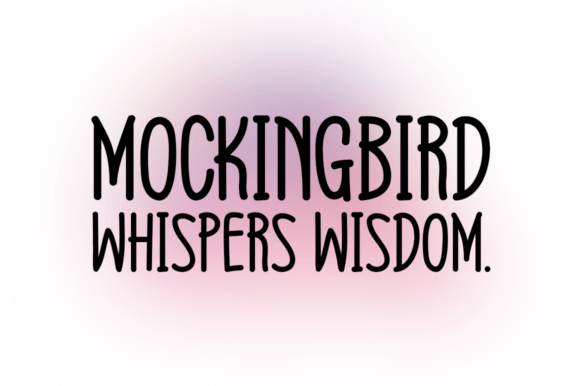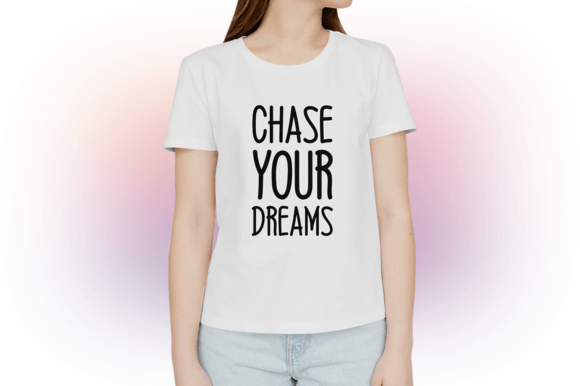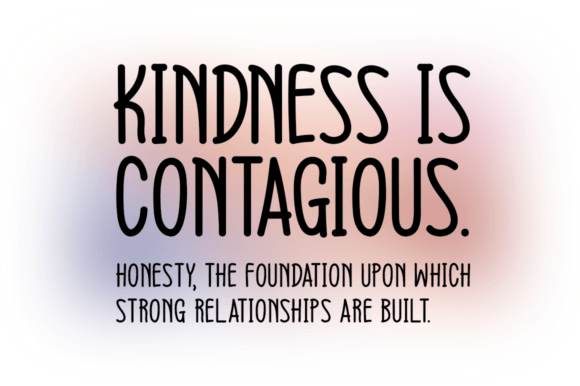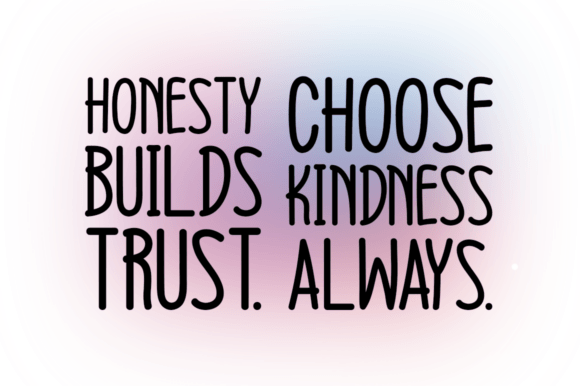
Introduction to Humankind Font
Imagine you’re working on a creative project, and you need the perfect font to bring your vision to life. You search through countless design resources, but nothing seems to capture the essence you’re looking for. That’s where the Humankind Font comes in – a high-quality, handwritten font that exudes modernity and timelessness.
As a designer, you know how crucial it is to have the right tools at your disposal. The Humankind Font is a valuable addition to any design arsenal, offering a fresh and inviting touch to your projects. Whether you’re working on branding, stationery, or digital designs, this font is sure to elevate your creations. Plus, its transparent background makes it perfect for image sliders and photo frames, giving you the freedom to experiment with creative possibilities.
Key Features of Humankind Font
- Designed with a modern aesthetic, suitable for a wide range of creative projects
Honest Review: Humankind Font
I recently stumbled upon the Humankind Font and was excited to dive in and see what it had to offer. As a designer, I’m always on the lookout for high-quality design resources that can elevate my creative projects.
One of the first things that caught my eye was the Humankind Font’s transparent background, which allows for seamless integration with any design element. This feature is particularly useful when working on complex compositions.
- ✨ High-quality design that’s perfect for a wide range of creative projects
- ⚠️ Limited character set, which may not be suitable for extended text-based projects
- ⚠️ May not be as versatile as some other fonts on the market
Overall, I was impressed with the Humankind Font’s design and functionality. While it may not be perfect for every project, it’s a great option for designers who need a high-quality font with a transparent background.
Tips for Getting the Most Out of Humankind Font
When using the Humankind Font, consider the following tips: Use a transparent background to give your design a clean and modern look. Experiment with different font sizes and styles to create visual interest. Use the font in conjunction with other high quality design resources to create a cohesive and professional look.
Common Use Cases for Humankind Font
The Humankind Font is a versatile design resource that can be used in a variety of creative projects, including logos, business cards, and marketing materials. It’s also a great choice for presentations and documents, where a clear and easy-to-read font is essential.
Alternatives to Humankind Font
Avenir is a high-quality sans-serif font that is ideal for use in creative projects requiring a clean and modern aesthetic. It features a transparent background and is available for free download. Avenir is a versatile font that compares well to Humankind Font in terms of its clean lines and modern feel, but has a more geometric and futuristic design.
Montserrat is a popular sans-serif font that is perfect for use in design projects requiring a high level of readability and visual appeal. It features a transparent background and is available for free download. Montserrat is similar to Humankind Font in terms of its clean and modern design, but has a more urban and industrial feel.
Q: Does the Humankind Font have a transparent background?
No, the Humankind Font does not have a transparent background. The font is designed to be used as a solid, opaque font. However, you can use image editing software to create a transparent background for the font if needed.